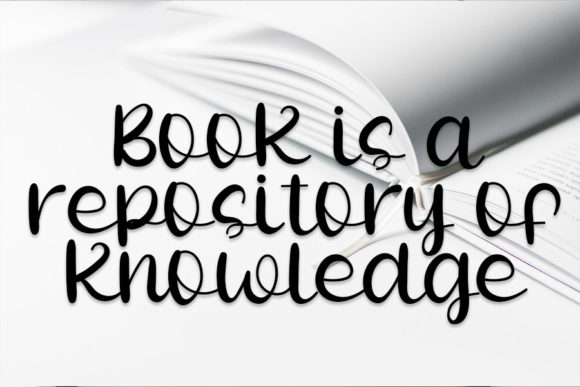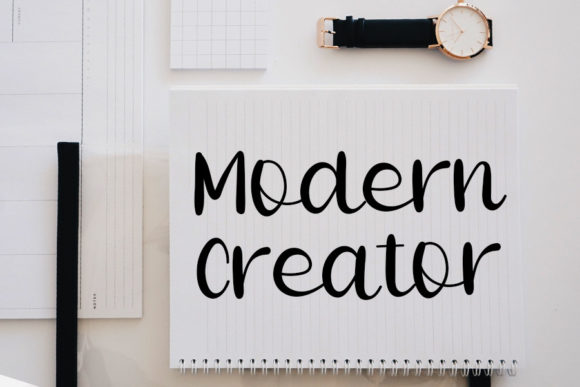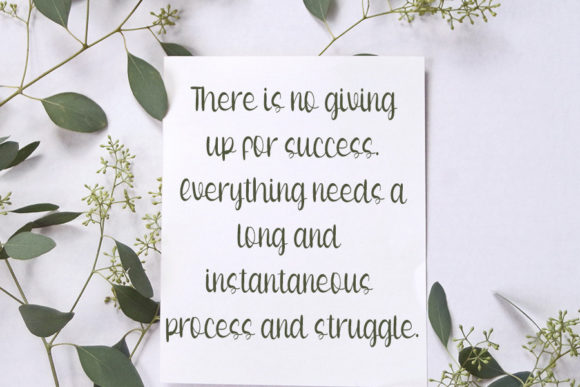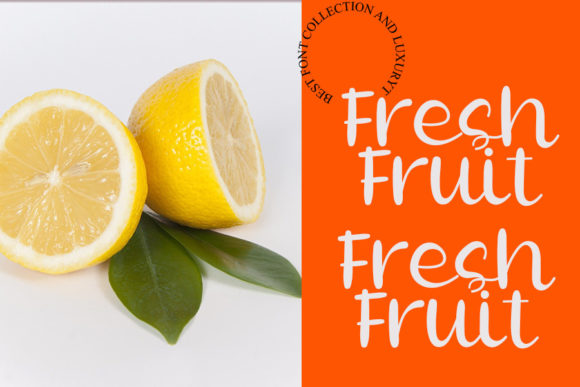
Lemon Juice Font
About Lemon Juice Font
Lemon Juice is a jolly, fresh and clean script font. It can be used on various creations, related to either summer, fruit or pretty much any design that requires a bright touch. Have fun with this beautiful font and explore its endless variations.